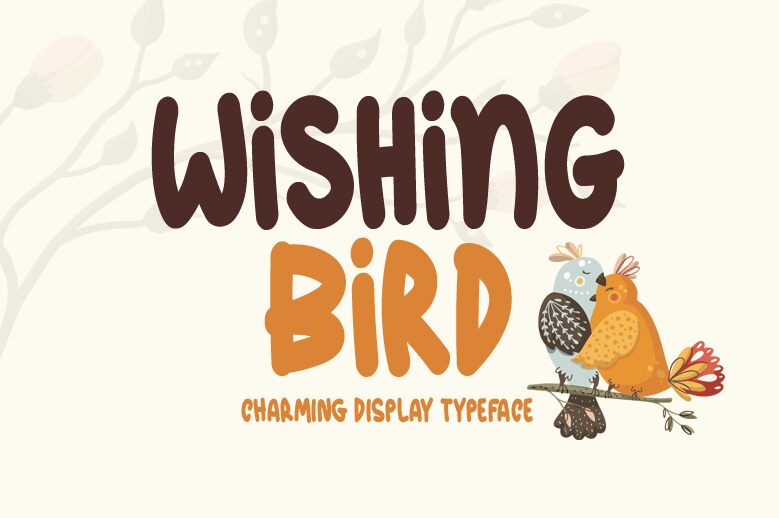
Wishing Bird, the latest addition to Md Shohail Bhuian's typography collection, is a bold and playful handwritten font that is bound to add a touch of whimsy to any project. With its semi-condensed width, this font type is perfect for creating attention-grabbing headlines, social media graphics, and branding materials. Its smooth curves and uneven lines give off a personal and authentic feel that works great for invitations, greeting cards or any design projects that require a touch of creativity. With Wishing Bird's boldness and distinctive style, it's sure to bring your designs to life in ways you never imagined!
Wishing Bird